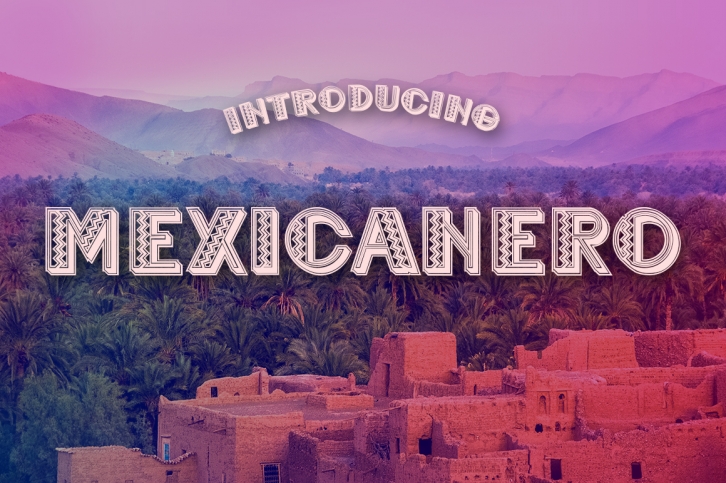
Mexicanero is a lovely decorative font by designer Vladimir Nikolic. This font is a sans serif embellished by patterns reminiscent of Mexico, perfect for fun and carefree designs in digital and print. ¡Orale!